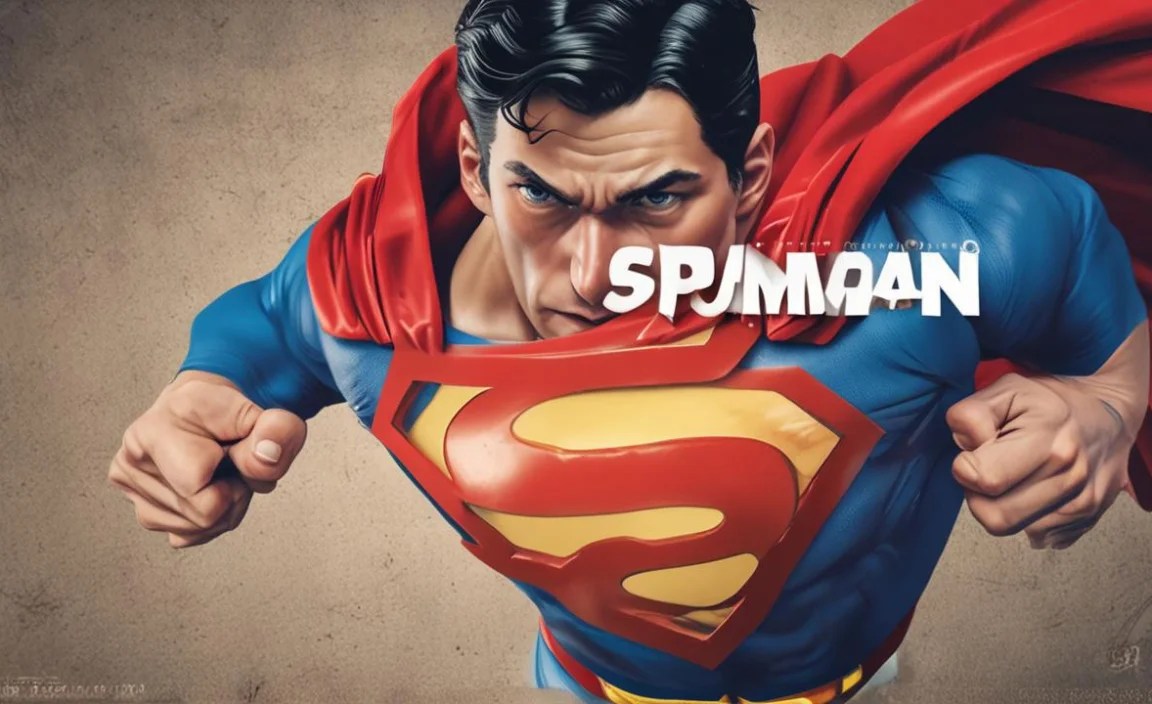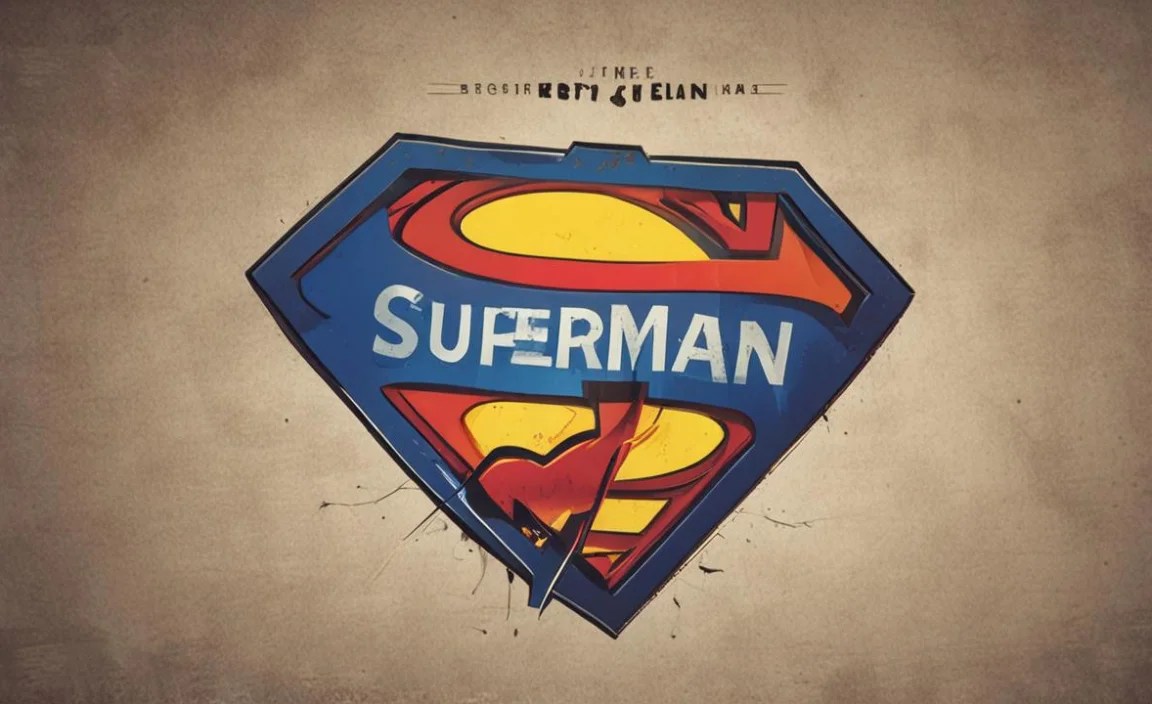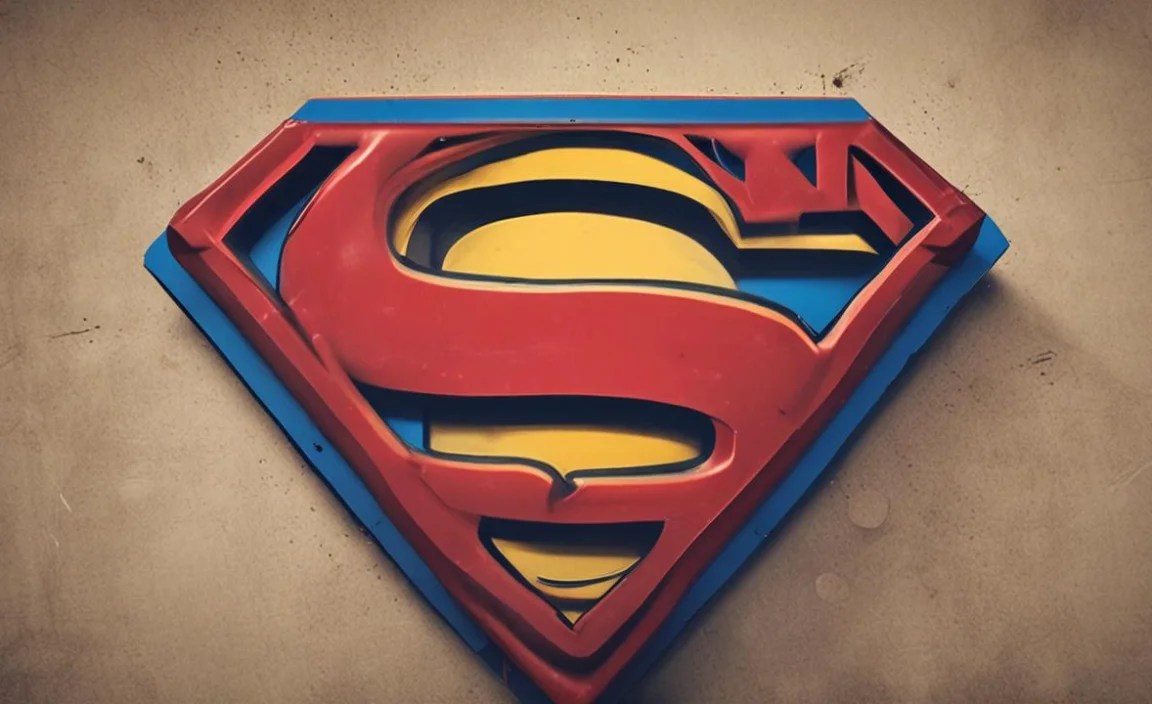
The Superman font is an iconic display font that has become synonymous with heroism, comic books, and the fictional hero Superman.
Designed to capture the essence of the DC Comics universe, this font is instantly recognizable for its bold, dynamic style and its association with the Superman logo. Whether you’re designing a comic book cover, creating posters, or working on branding, the Superman font brings a sense of power and nostalgia to any project.
Superman Font Family and Styles
The Superman font family is a display font that features a bold, geometric design. It is primarily used for headlines, logos, and titles, making it perfect for comic book-inspired projects. The font is available in various formats, including TTF, OTF, SVG, and PNG, allowing designers to use it across different platforms and mediums.
Designer and Inspiration
The Superman font was inspired by the classic typography used in Action Comics and other Superman-related materials. While the exact designer of the original Superman font is not widely documented, modern iterations and similar fonts have been created by talented font creators like John Roshell, who specializes in comic book typography. The font’s design reflects the heroic and timeless nature of the Superman character, created by Jerry Siegel and Joe Shuster.
Key Features of the Superman Font
- Bold and Geometric: The font’s strong lines and sharp edges mimic the Superman emblem and the iconic “S” shield.
- 3D Effect: Many font versions include a 3D effect, adding depth and dimension to text.
- Superman Logo Influence: The font’s design is heavily influenced by the Superman logo, making it perfect for branding and fan projects.
Where to Use the Superman Font?
- Comic Book Covers: Perfect for titles and headlines in ongoing comic book series.
- Posters and Printed Materials: Ideal for creating eye-catching designs for movies like Superman Returns.
- Video Games: Adds a superhero vibe to game titles and interfaces.
- Branding: Great for fans and businesses looking to incorporate the Superman theme into their designs.
What Is The Superman Font?
The Superman font is a bold, geometric display font inspired by the typography used in Superman comics and logos.
Who Designed The Superman Font?
The original designer is not widely known, but designers like John Roshell have created modern versions.
What Makes The Superman Font Unique?
Its bold, geometric design and association with the Superman emblem make it stand out.